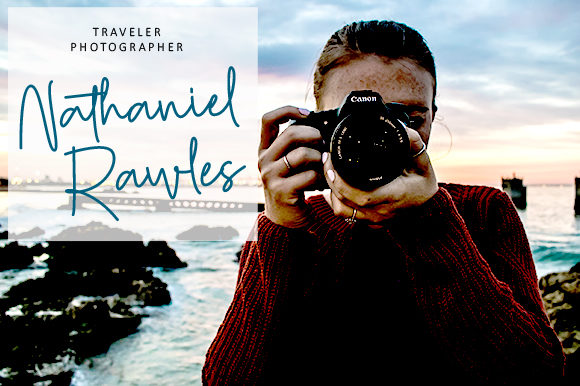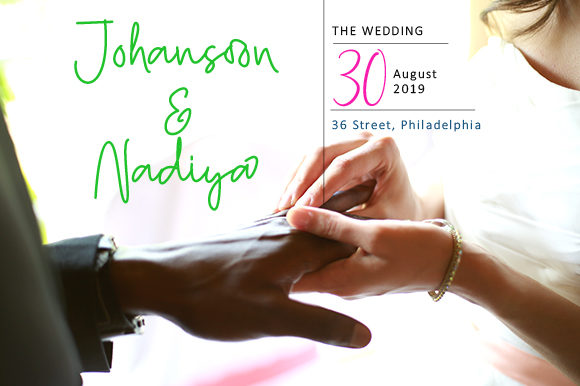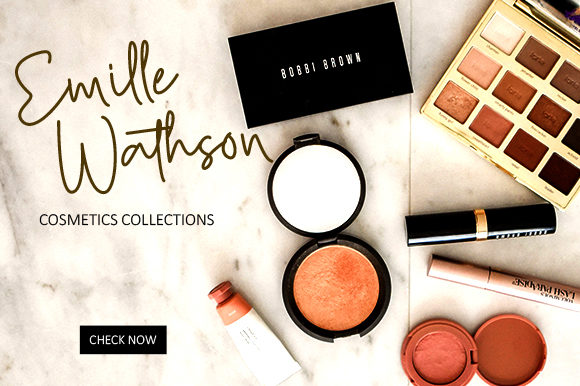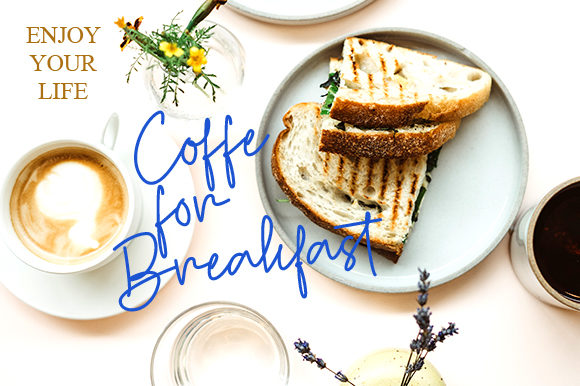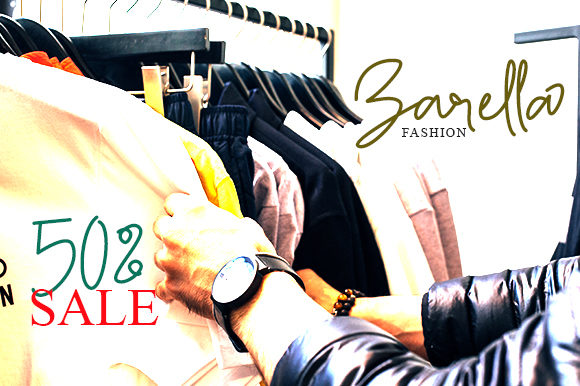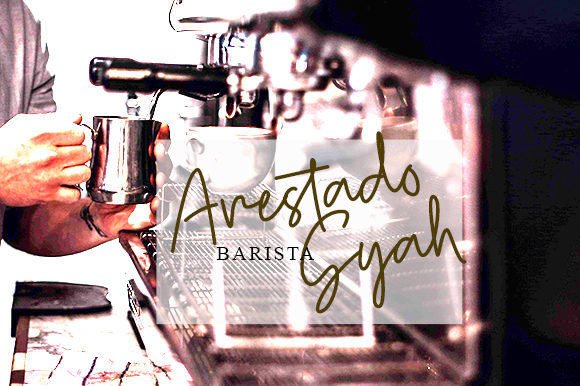
Discover the Magic of Handwritten Design
Do you remember the joy of doodling in your notebook as a child? The way a simple scribble could bring a smile to your face and transport you to a world of imagination? For designers, that same spark of creativity is what drives us to push the boundaries of visual expression. And that’s exactly what the Callien Pooh Font offers – a chance to infuse your designs with a playful, handwritten charm that’s sure to captivate audiences.
With its bouncy characters and whimsical feel, the Callien Pooh Font is the perfect addition to any design project. Whether you’re crafting a brand identity, designing a wedding invitation, or creating a logo, this font is sure to elevate your work to new heights. Its versatility and charm make it an invaluable asset for designers looking to add a personal touch to their projects.
Key Features of Callien Pooh Font
- Font Family: Callien Pooh Font is a unique, handwritten font that offers a wide range of styles and variations.
- Character Count: The font contains 240 characters, including uppercase and lowercase letters, numbers, and special characters.
- Unique Characteristics: The font features a playful, handwritten style with a mix of cursive and print elements, making it perfect for creative projects, such as invitations, posters, and social media graphics.
Designer Review: Callien Pooh Font
I recently had the chance to work with the Callien Pooh Font, and I have to say, it’s a unique and quirky addition to any design project. ✨ One thing that stands out is the playful, handwritten feel of the font, which is perfect for creating a whimsical or childlike atmosphere in your design.
- ✨ Great for creating a playful or whimsical atmosphere in designs
- ✨ Works well for headings or titles where a touch of personality is needed
However, there are some limitations to consider. ⚠️ The font can be a bit difficult to read at smaller sizes, and the irregular letterforms may not be suitable for all types of content. Additionally, the font’s uniqueness can sometimes make it feel over-the-top or too “cute” for more serious designs.
- ⚠️ May not be suitable for smaller text sizes or content that requires high readability
- ⚠️ Can feel over-the-top or too “cute” for more serious designs
Overall, I think the Callien Pooh Font is a great choice for designers who want to add a touch of personality and whimsy to their projects. Just be mindful of the font’s limitations and use it in moderation to get the best results.
For best results, use the Callien Pooh Font in a design with a playful and whimsical theme.
For best results, use the Callien Pooh Font in a design with a child-friendly or nostalgic theme.
For best results, use the Callien Pooh Font in a design with a fun and educational theme.
The Callien Pooh Font is ideal for:
- Children’s book covers and illustrations
- Marketing materials for family-friendly brands
- Personalized gifts and stationery
Alternatives to “Callien Pooh Font” for Designers
Pacifico is a beautiful, elegant script font ideal for wedding invitations, greeting cards, and other creative projects where a touch of sophistication is required. Its flowing lines and subtle flair make it perfect for adding a personal touch to your designs.
Comparison: Pacifico has a more refined and elegant feel compared to Callien Pooh Font’s playful and whimsical style. It’s better suited for formal or high-end designs.
Great Vibes is a modern, handwritten font perfect for capturing a carefree and bohemian vibe. It’s great for social media graphics, event invitations, and any design project that requires a laid-back, creative feel.
Comparison: Great Vibes has a more relaxed and casual feel compared to Callien Pooh Font’s playful yet still somewhat elegant style. It’s better suited for projects that require a fun and laid-back atmosphere.